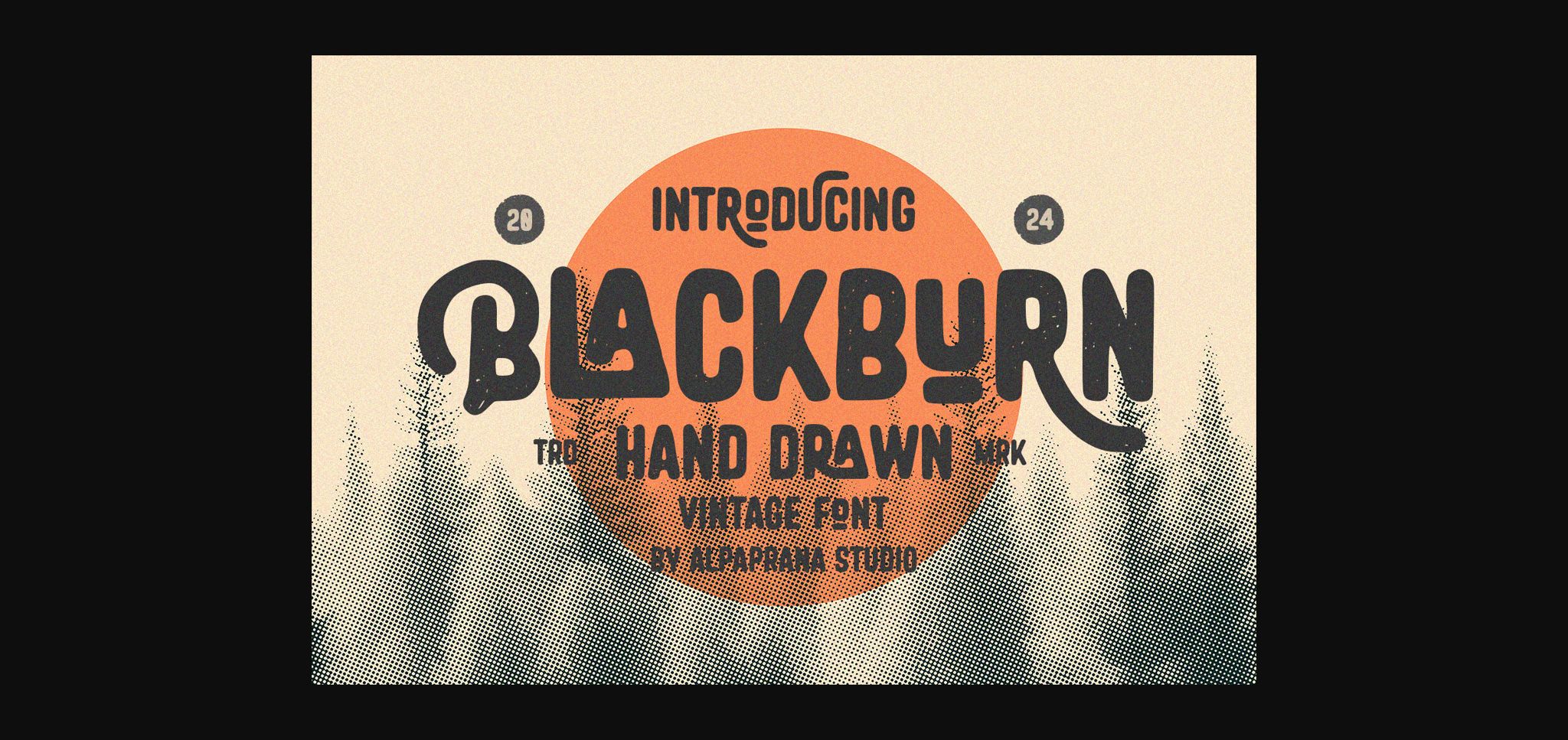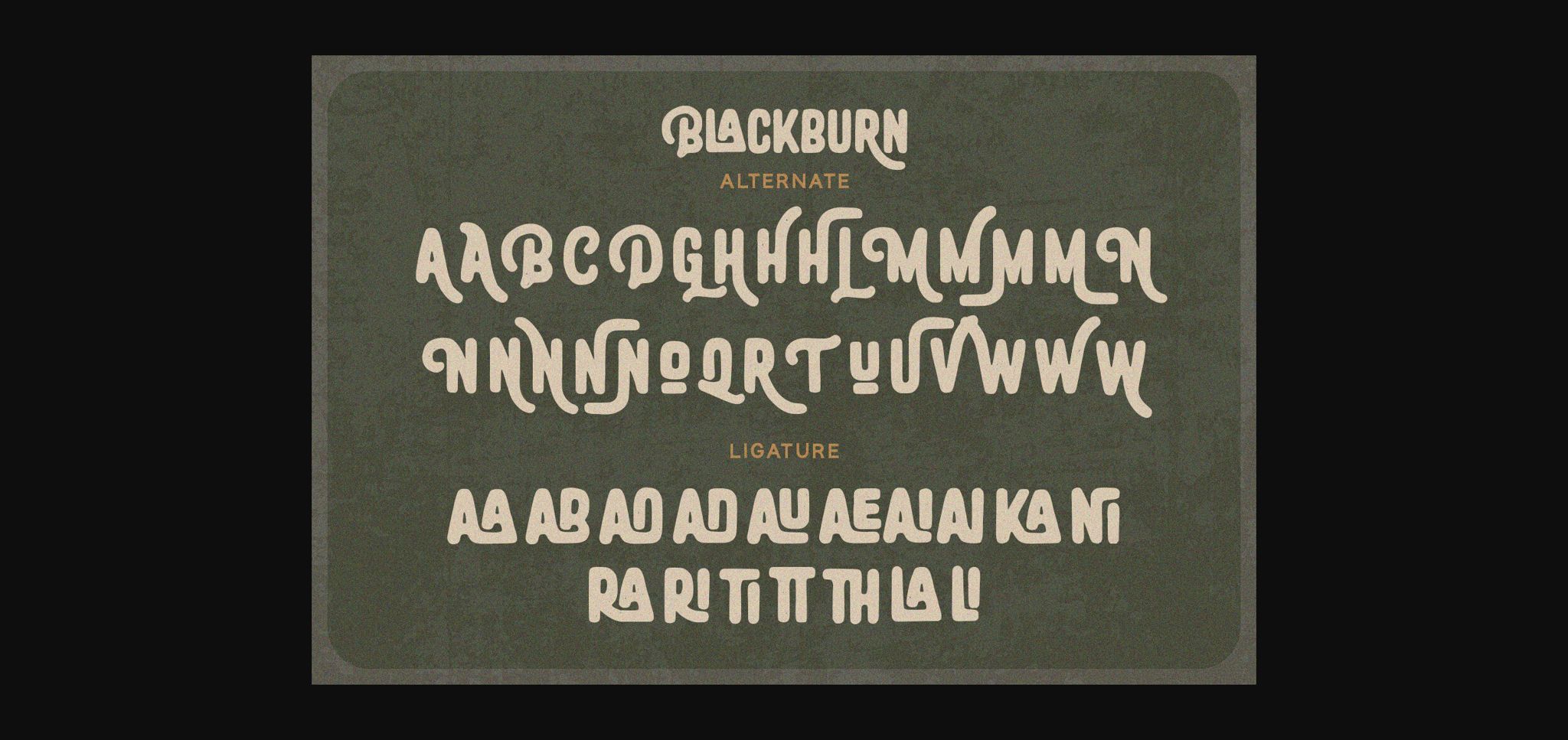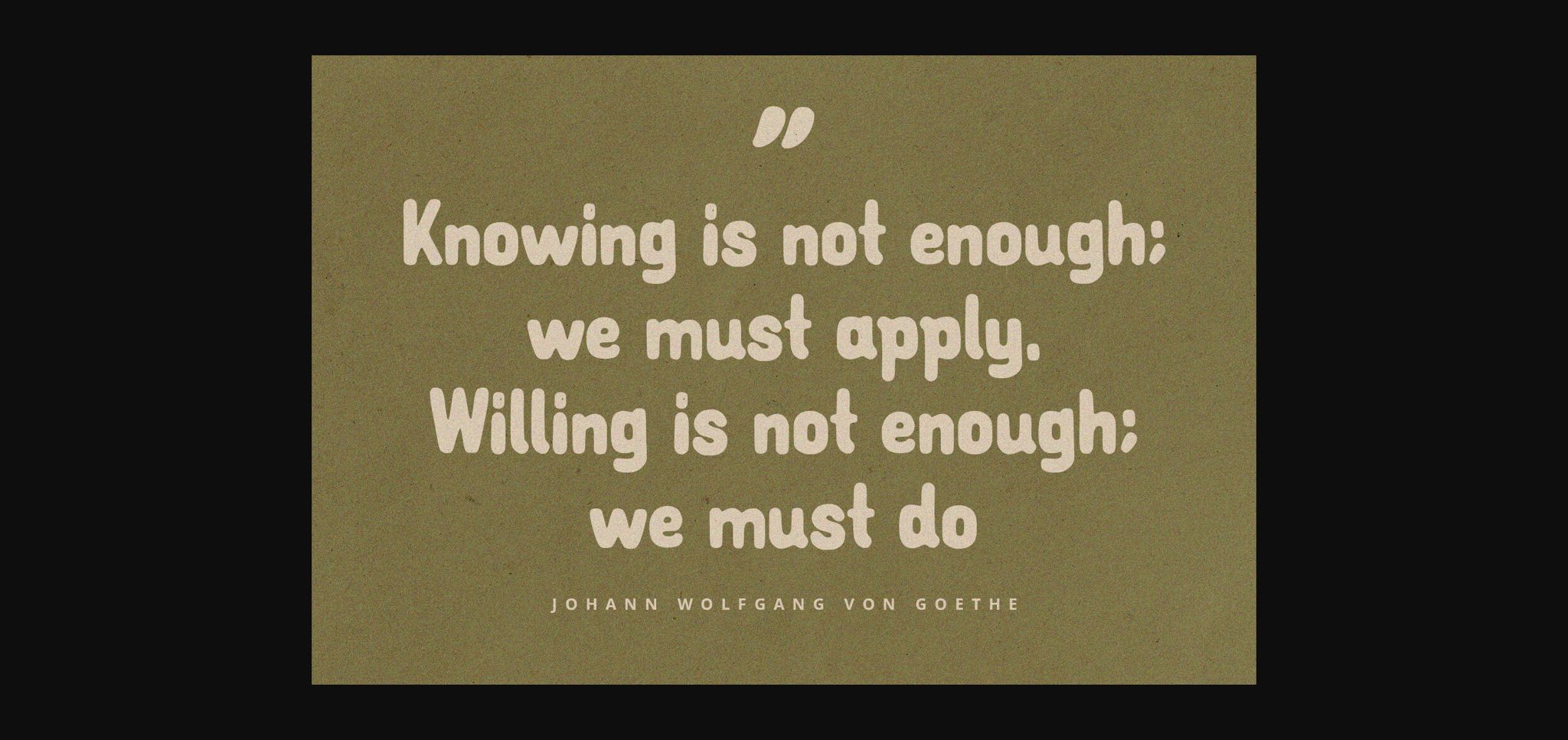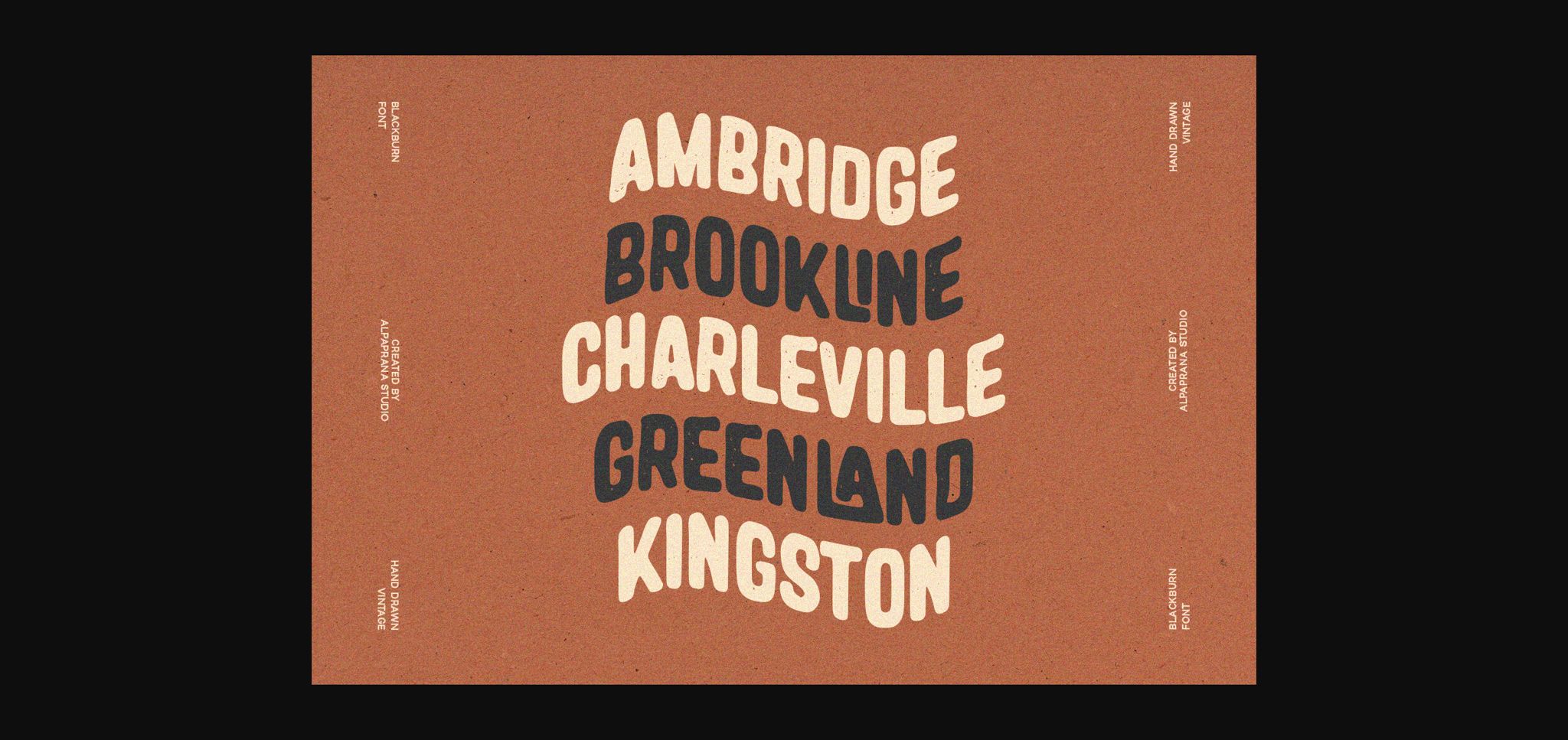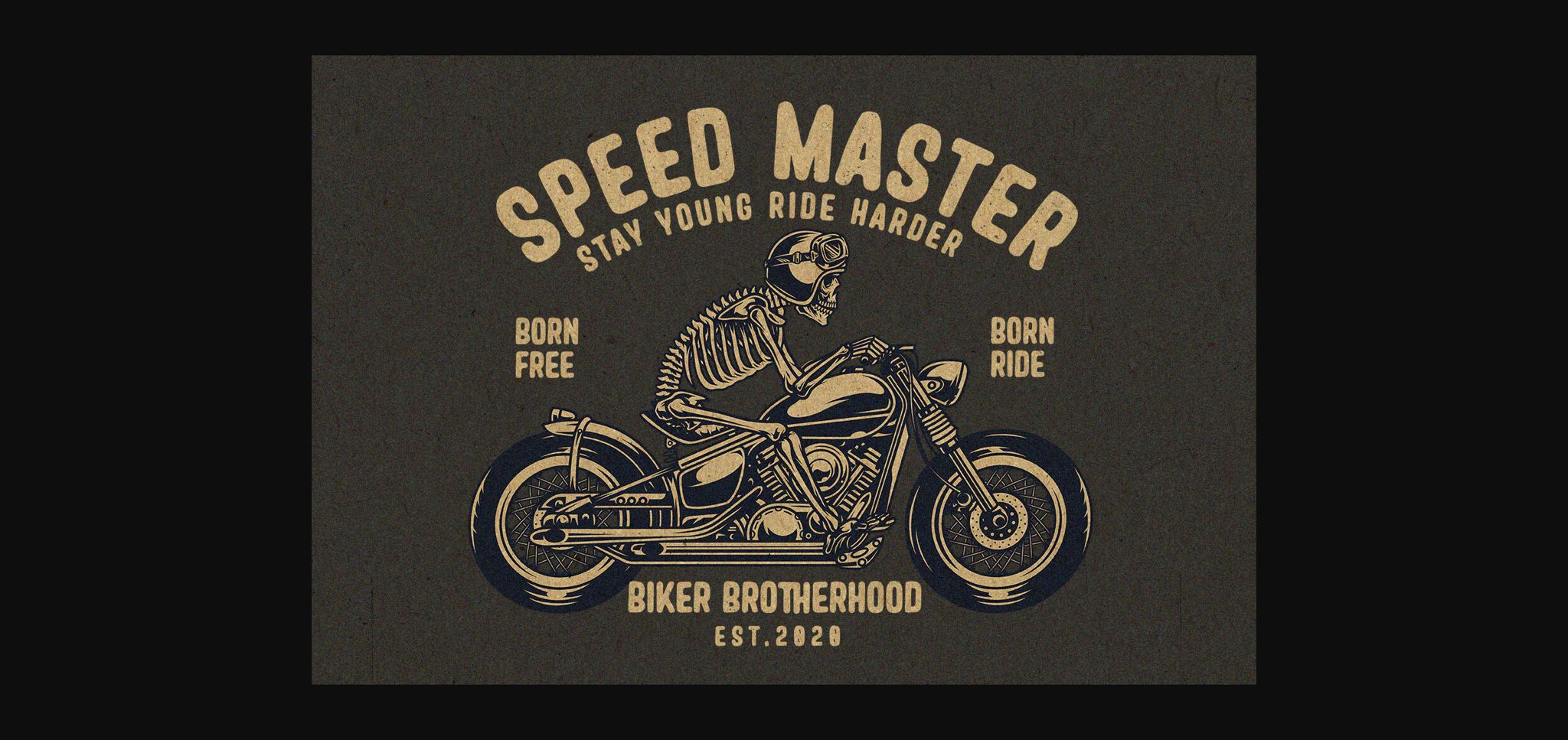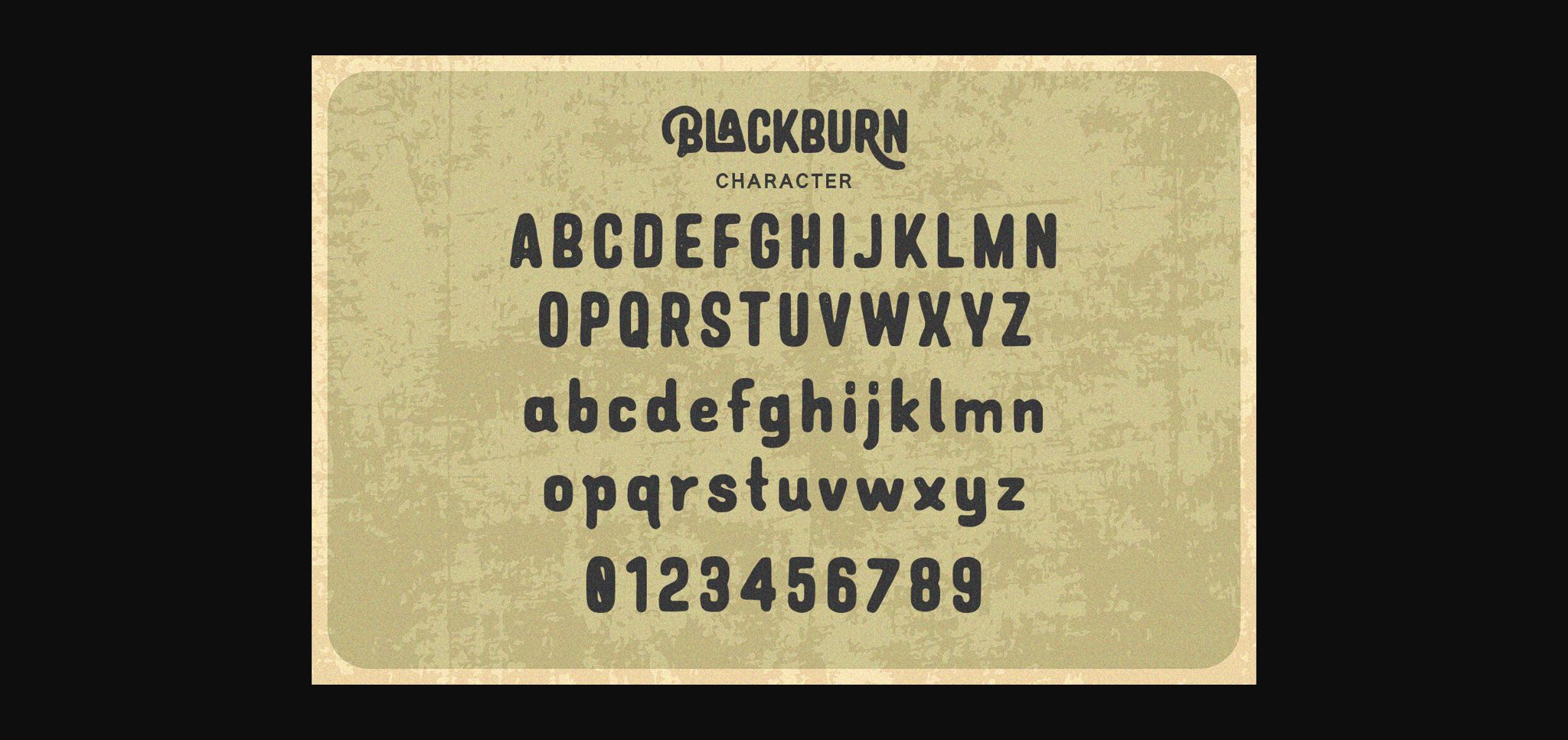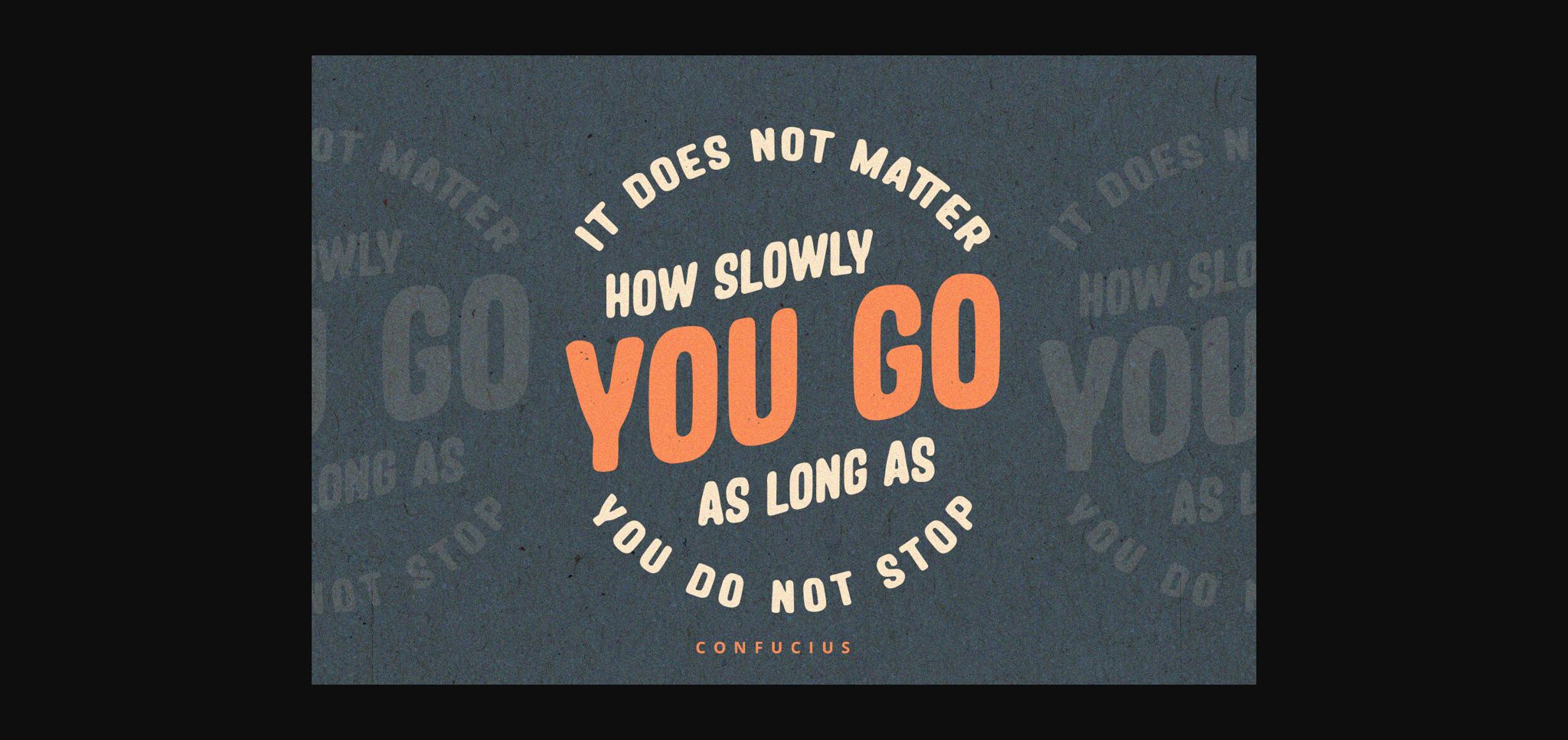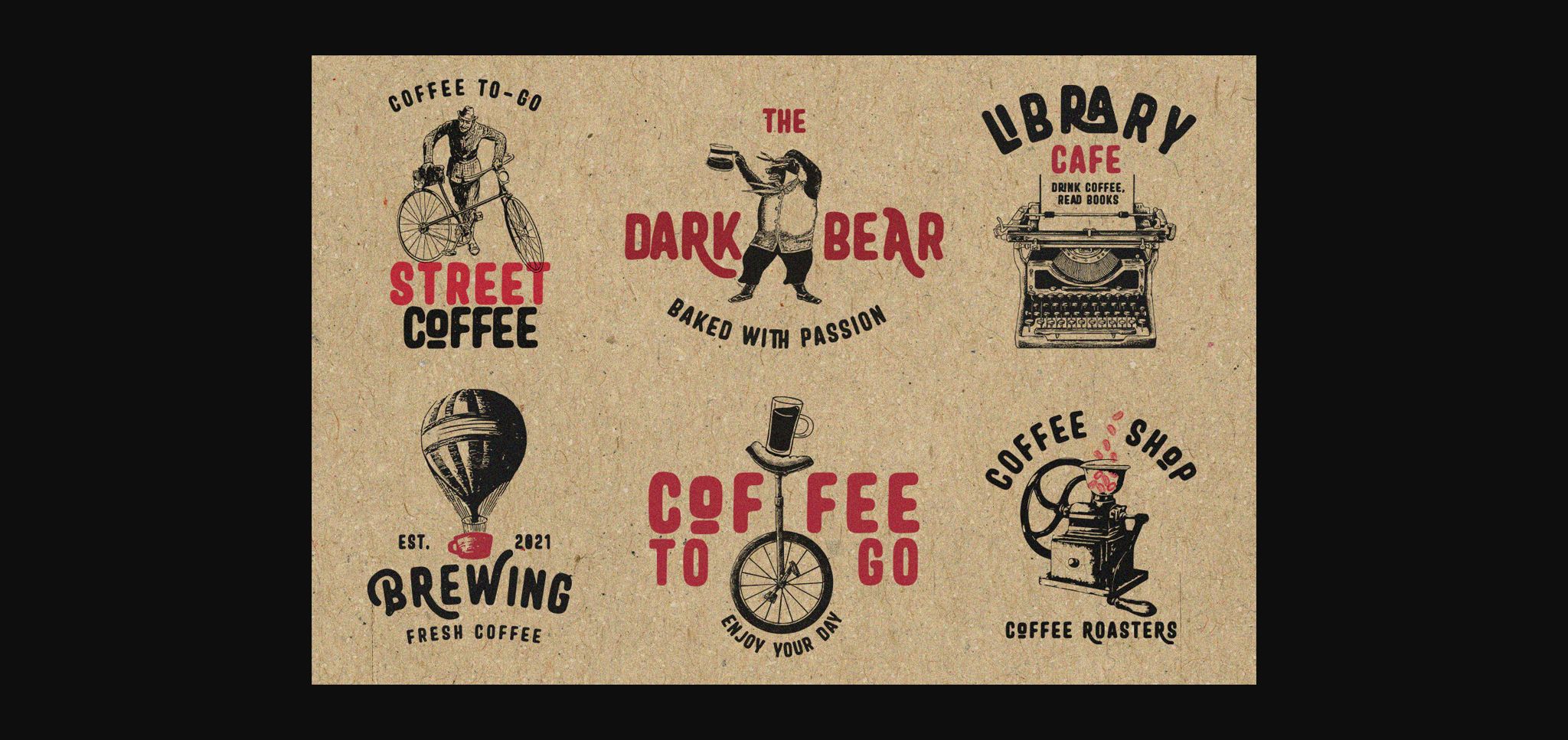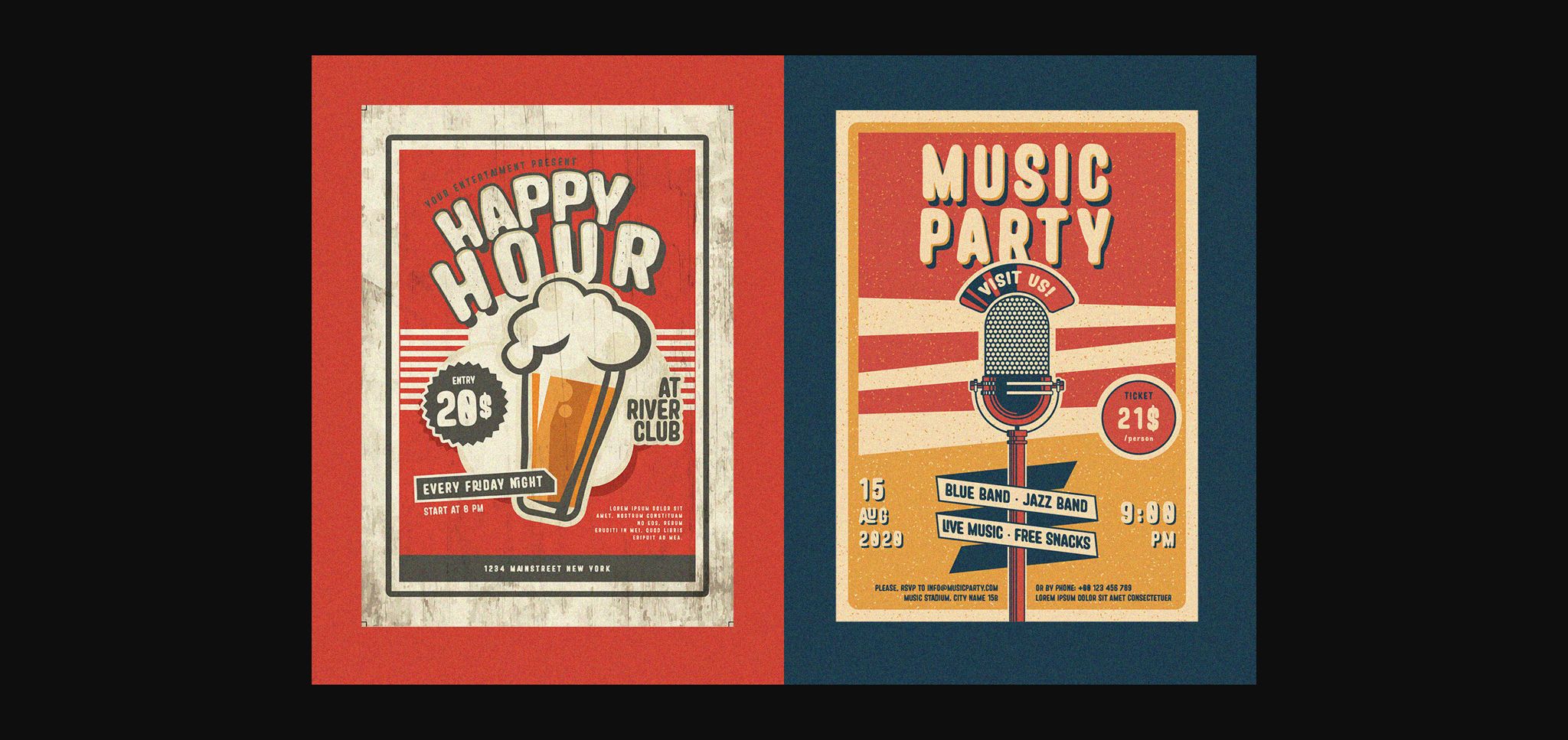
Blackburn Font
About Blackburn Font
Blackburn is a retro, rustic sans-serif font that encapsulates the essence of vintage charm. Its bold letterforms and worn edges evoke a nostalgic, weathered feel, perfect for projects seeking a touch of old-world authenticity. Blackburn adds a distinct and timeless character to your designs with its retro aesthetic.